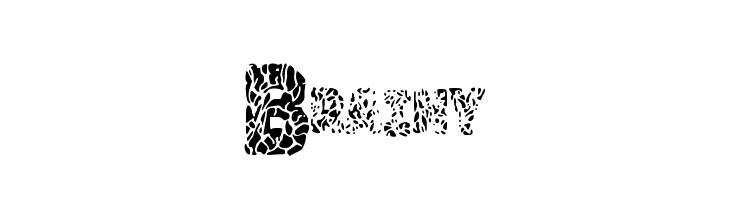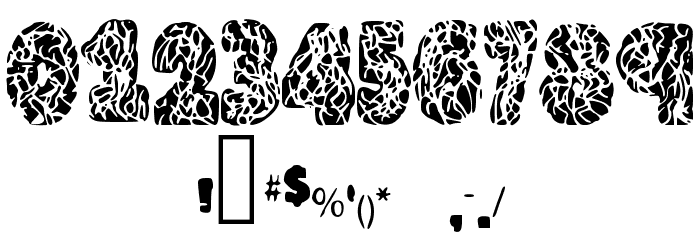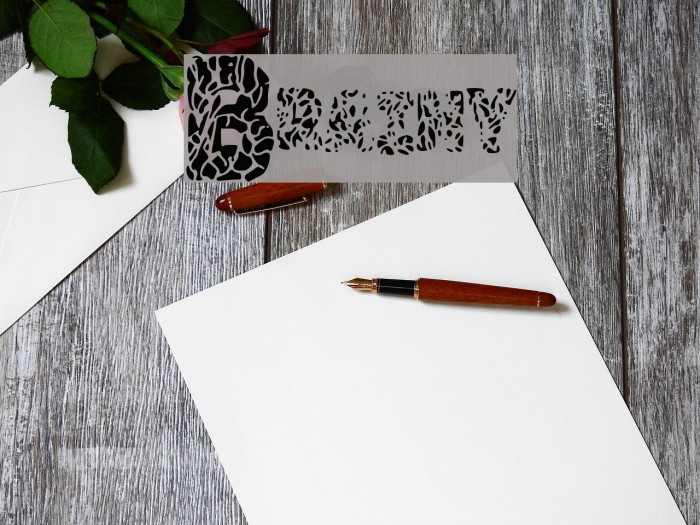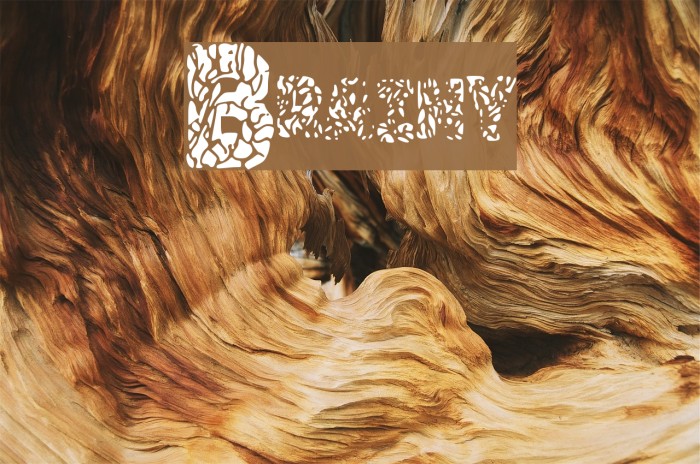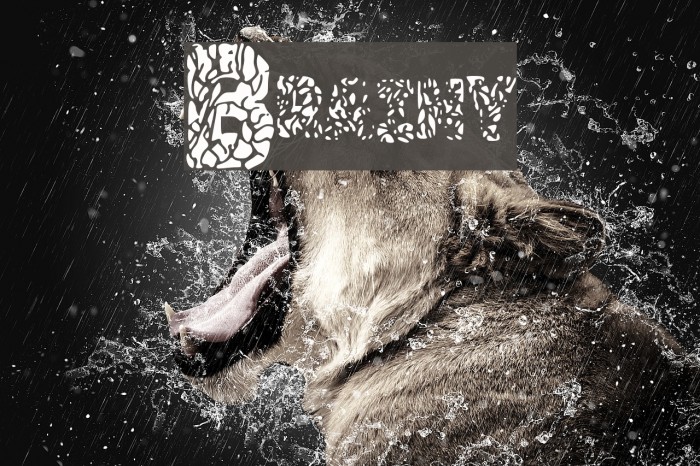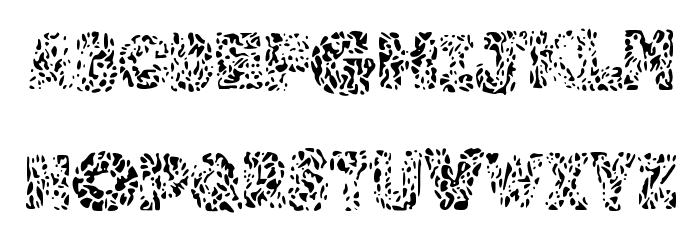
Brainy Font
Brainy Description
This font features a unique and intricate design with a pattern resembling brain-like textures within each character. The letters are bold and decorative, making them stand out with a complex, organic feel. The uppercase and lowercase letters maintain a consistent style, with the numbers and special characters following the same intricate pattern. The font's design is highly decorative, making it suitable for creative and artistic projects where a bold statement is needed.
A bold, decorative font with intricate, brain-like patterns from Decorative fonts.
- Proposed Projects: Ideal for artistic projects, posters, album covers, and any design requiring a bold, decorative touch.